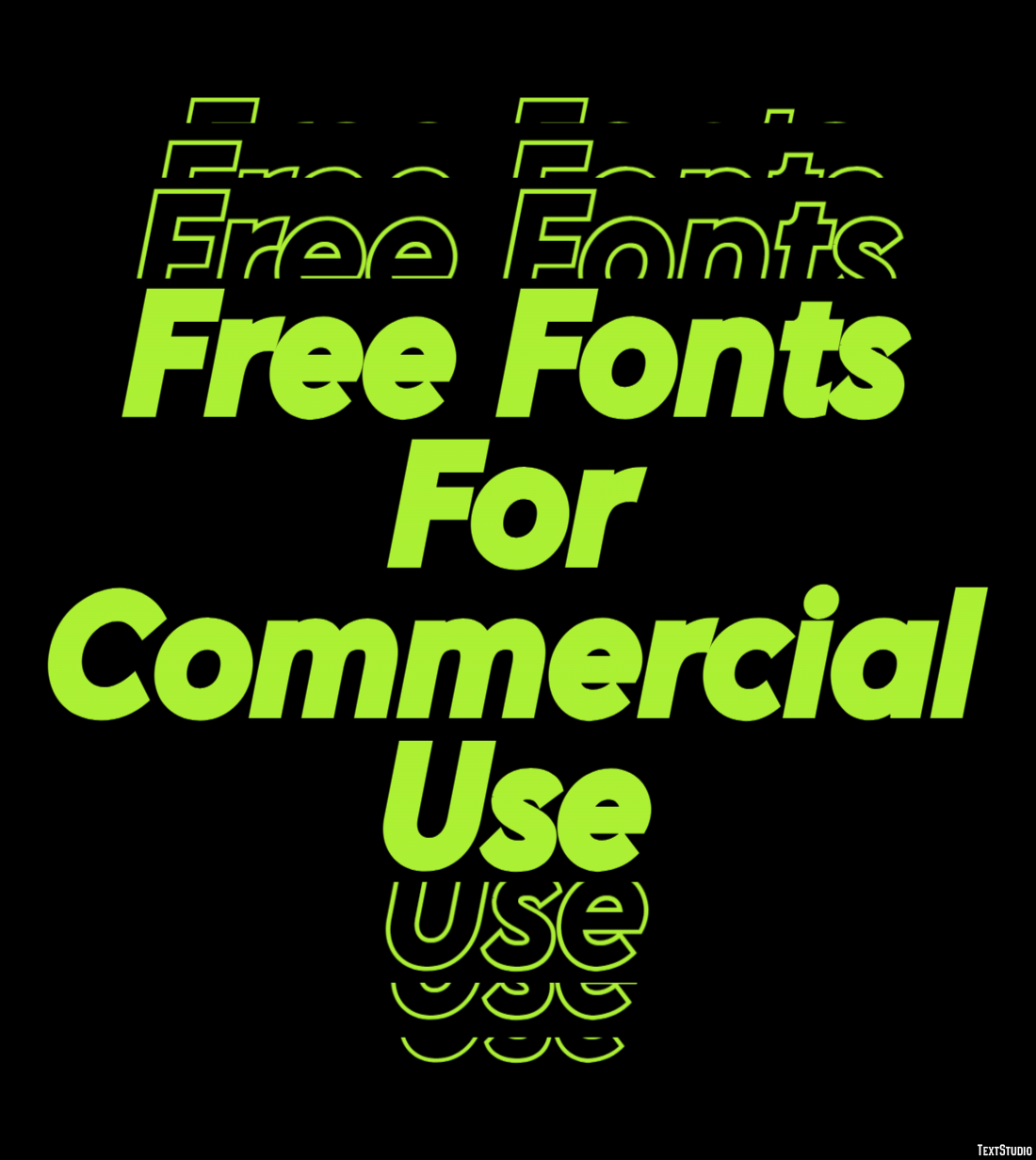
Modern stroke text effect
Free Fonts For Commercial Use Text Effect
Font effect designs Free Fonts For Commercial Use.
Create stunning and modern text effects effortlessly with our font style text effect generator. Customize your text with a variety of fonts, including a sleek green stroke, and add a touch of sophistication with repetition and stacking options. Experience the power of our innovative font generator today.